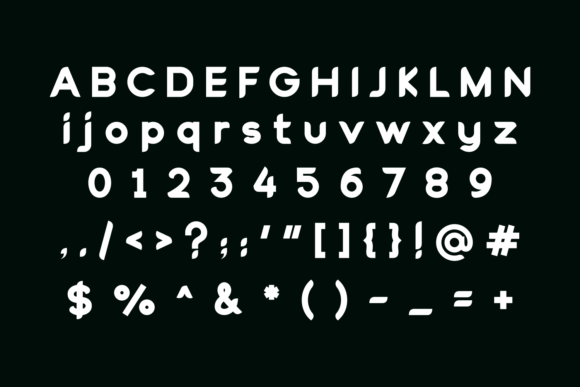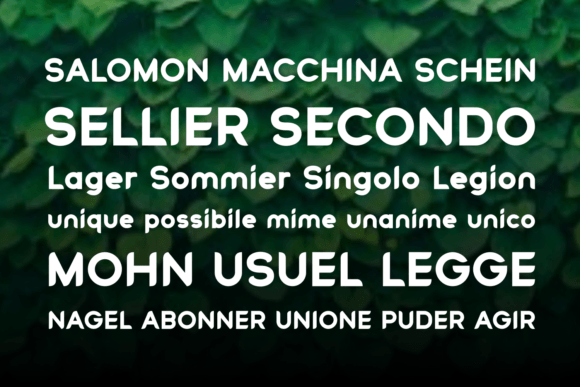
Introduction to Mazela Font
Mazela is a cool and unique sans serif font.
No matter the topic, this font will be an incredible asset to your fontsโ€™ library, as it has the potential to elevate any creation .
Key Features of Mazela Font
Why Choose Mazela Font?
Mazela Font offers exceptional quality and versatility, making it a valuable addition to your design toolkit. Whether you’re creating for personal projects or commercial use, Mazela Font delivers professional results.